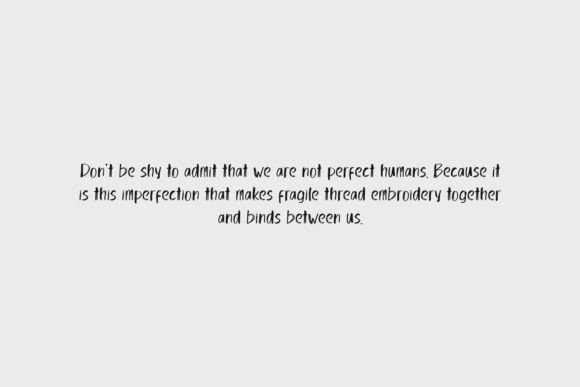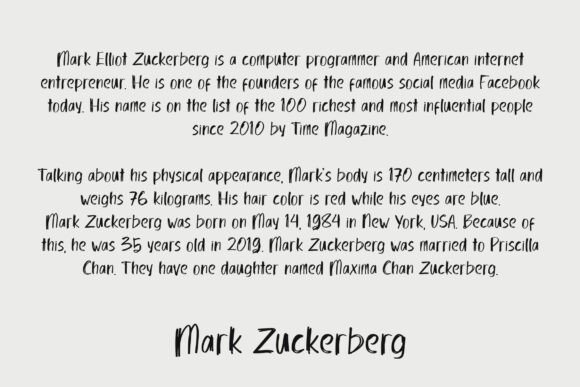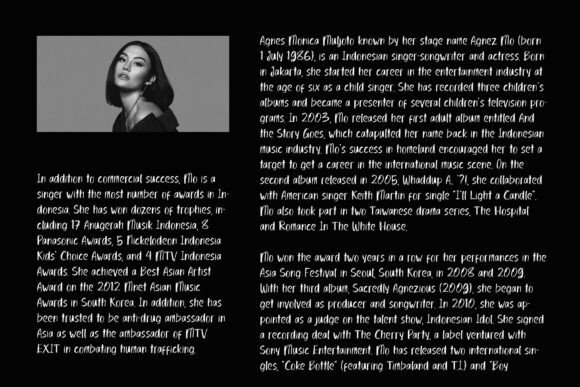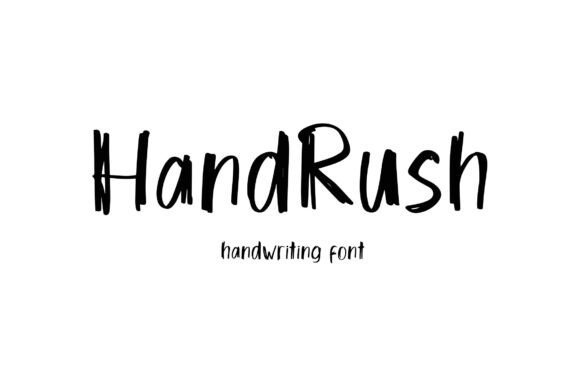
Introduction to Handrush Font
HandRush – Bold Rough Handwriting Font HandRush is a dynamic handwriting font with a bold, rough style, perfect for adding a raw and authentic touch to your designs.
With its unique character shapes, HandRush is ideal for creating eye-catching branding, packaging, or any creative project that demands a strong, edgy vibe .